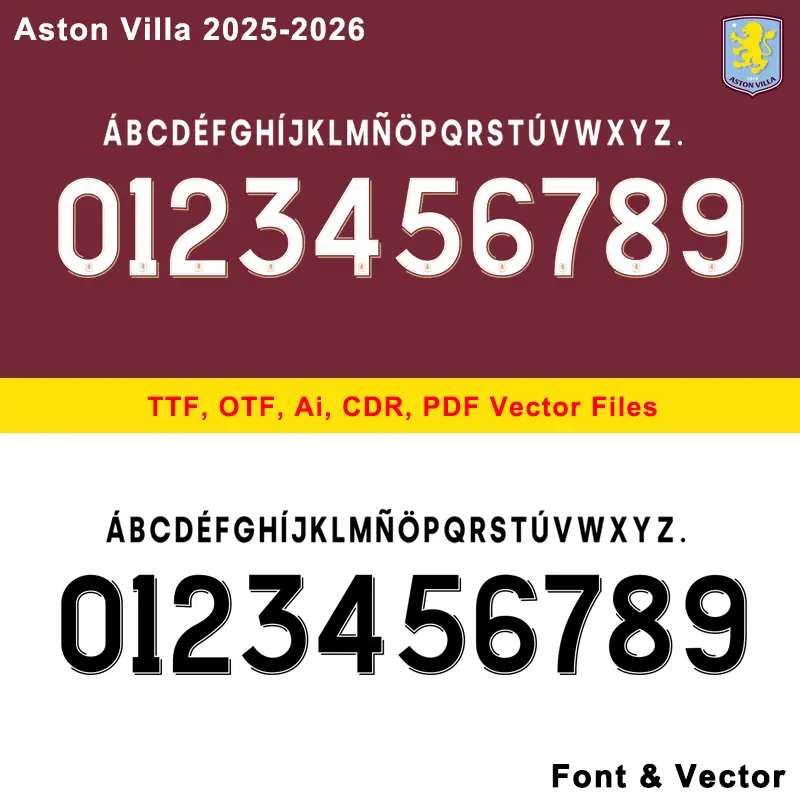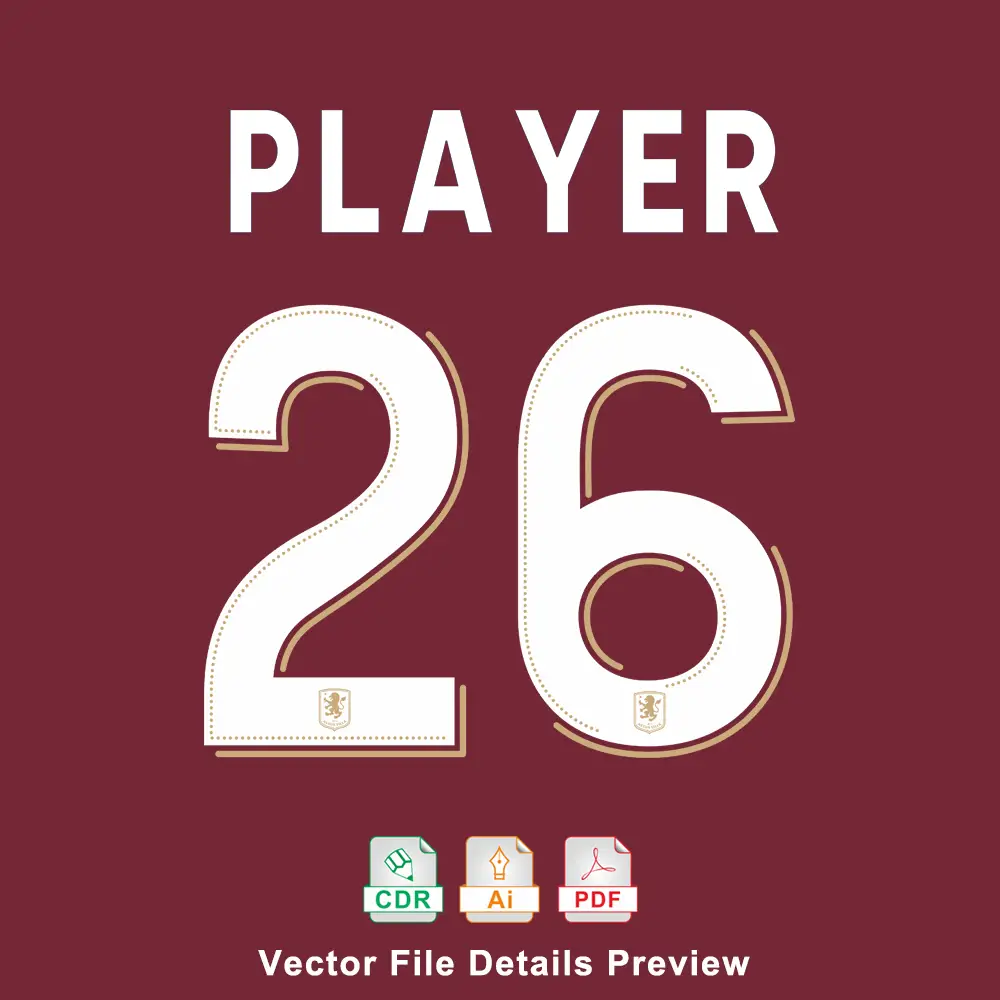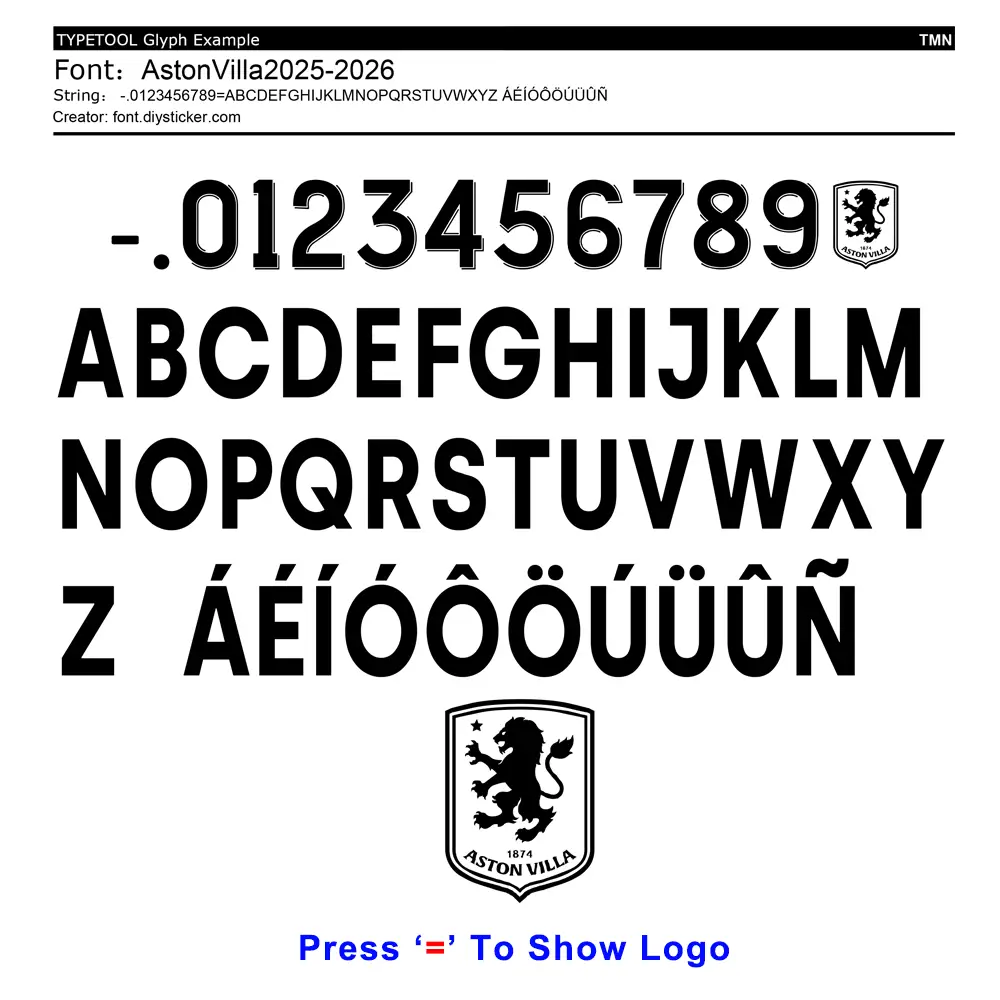
This is the ultimate resource for designers, printers, and dedicated fans looking to personalize or recreate the official player names and numbers used on the Aston Villa 2025-2026 season kits. This package provides maximum compatibility and quality for both digital design and professional printing.
Note: There is no mark on the number, no small hole/dot or any type of effect (truetype rule quality, it will crash the ttf file), so ttf only has normal font, details can be added through vector software editing.